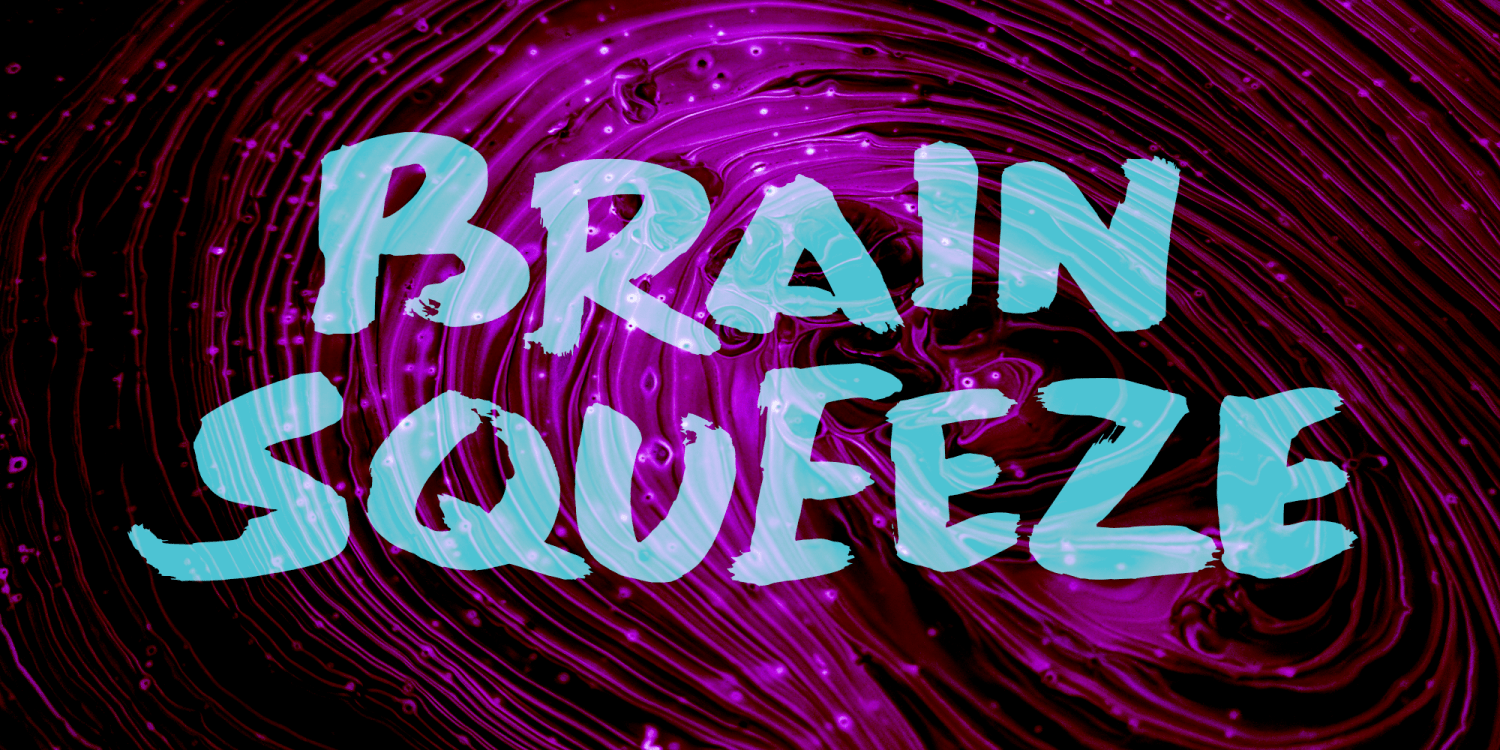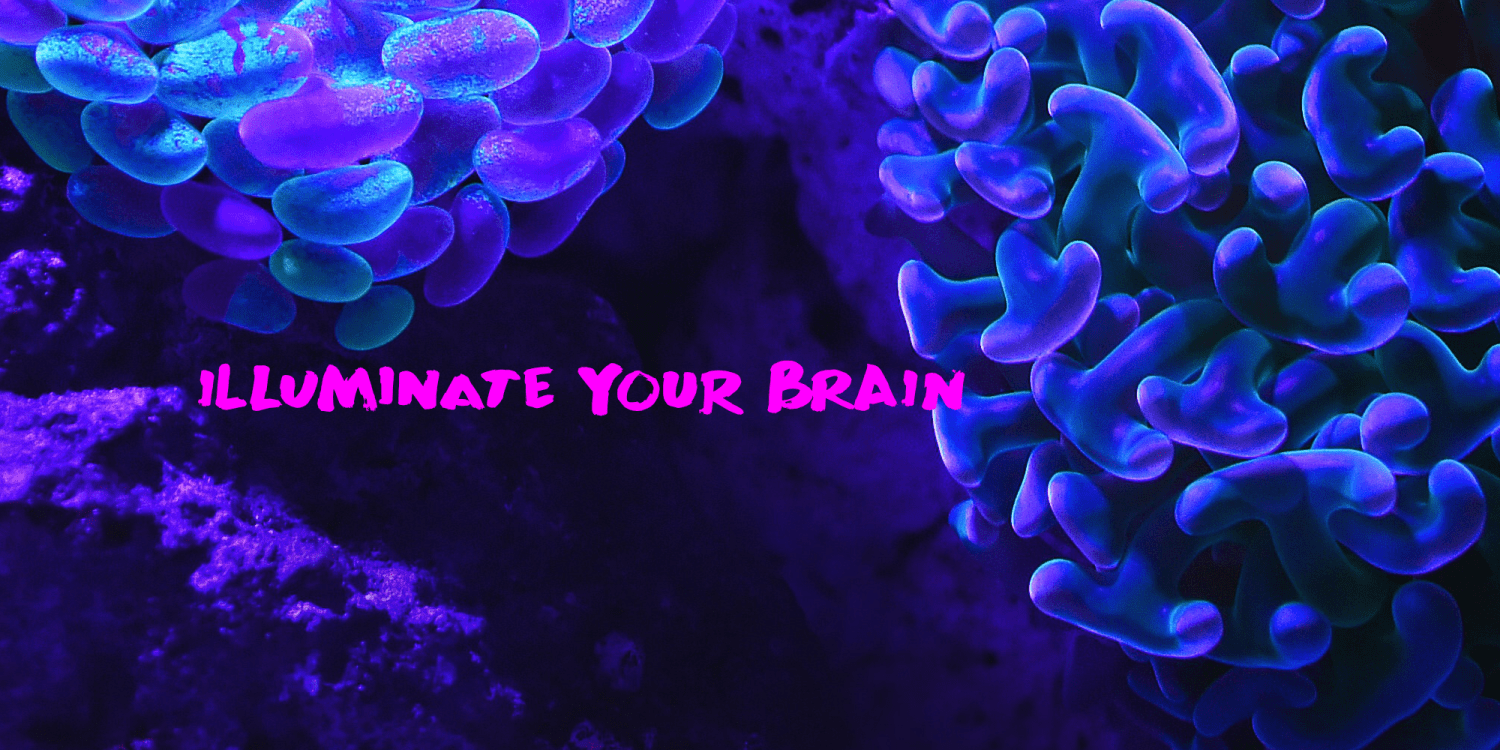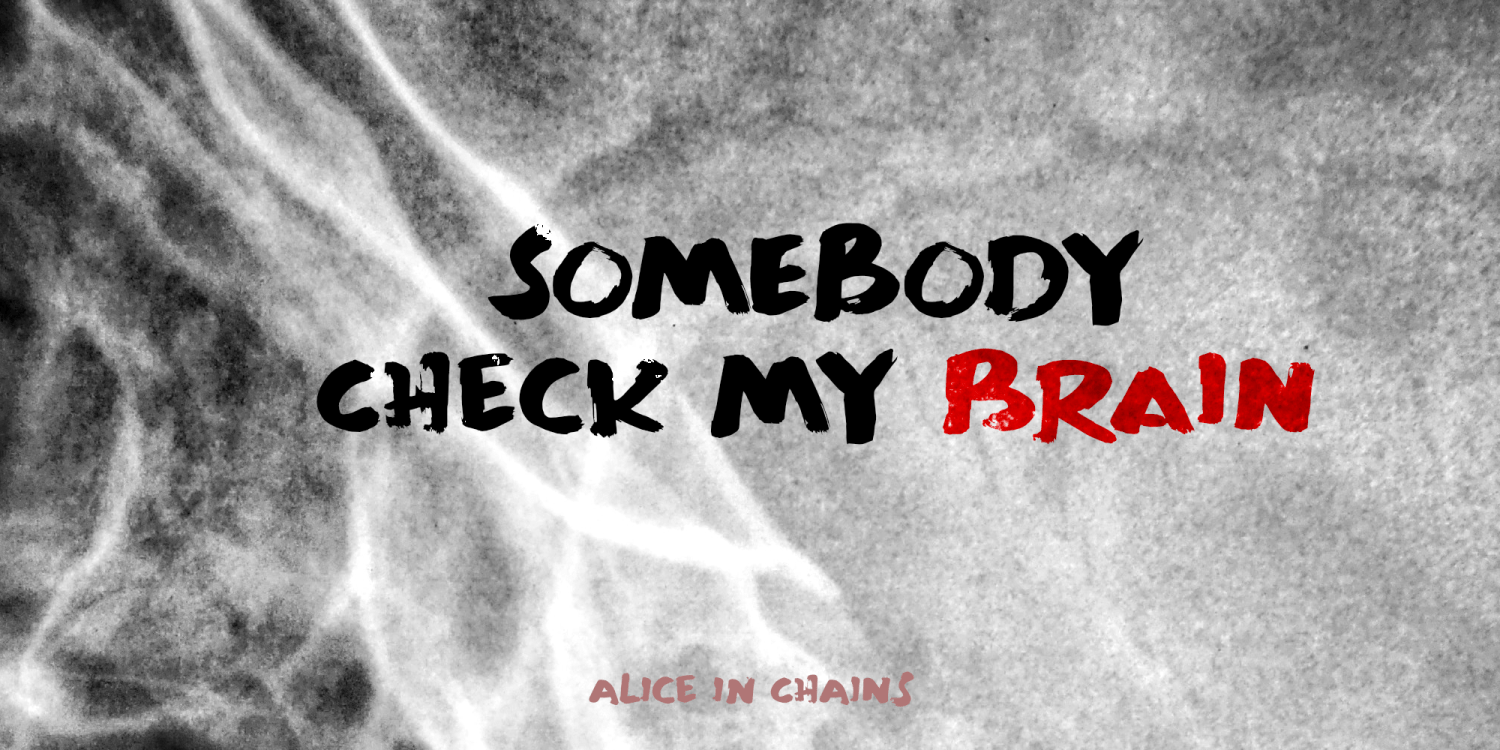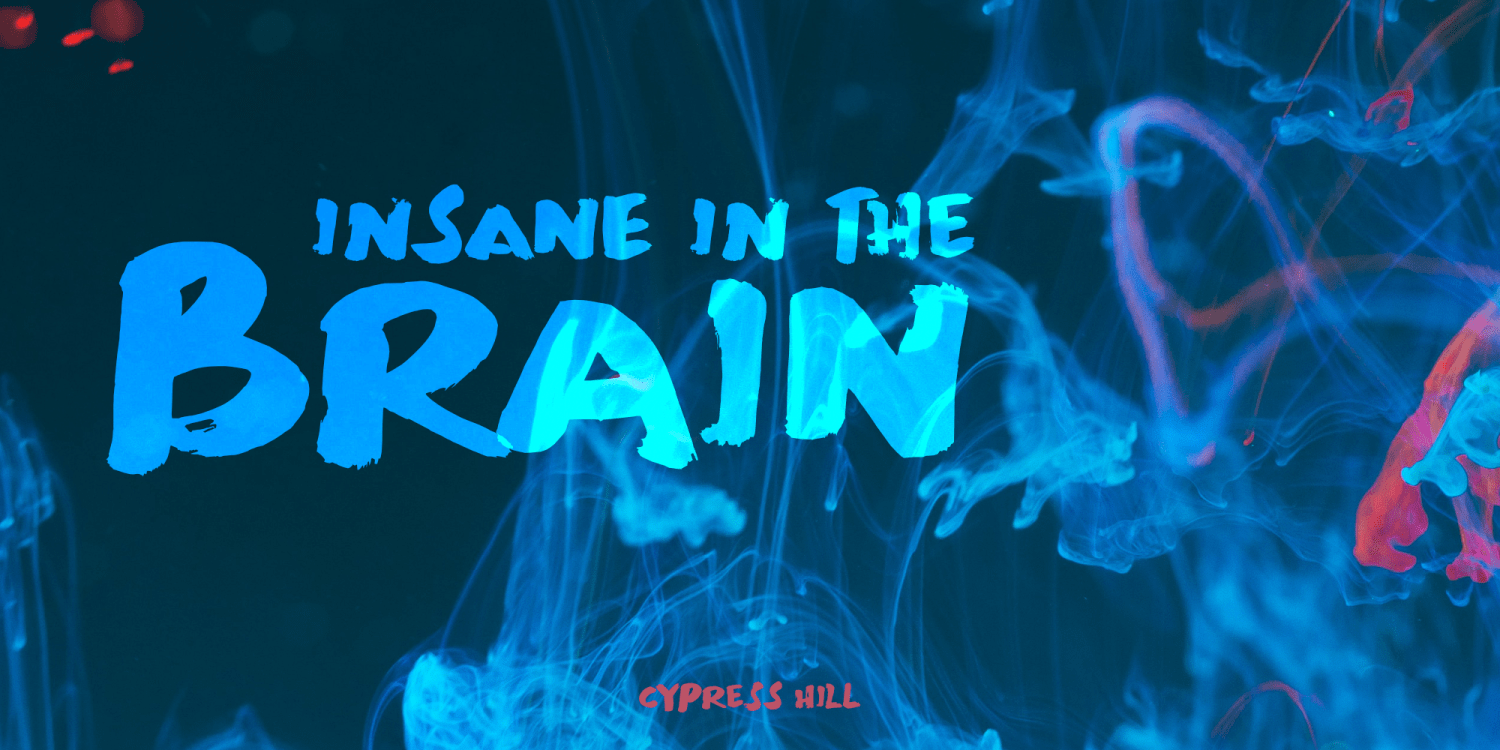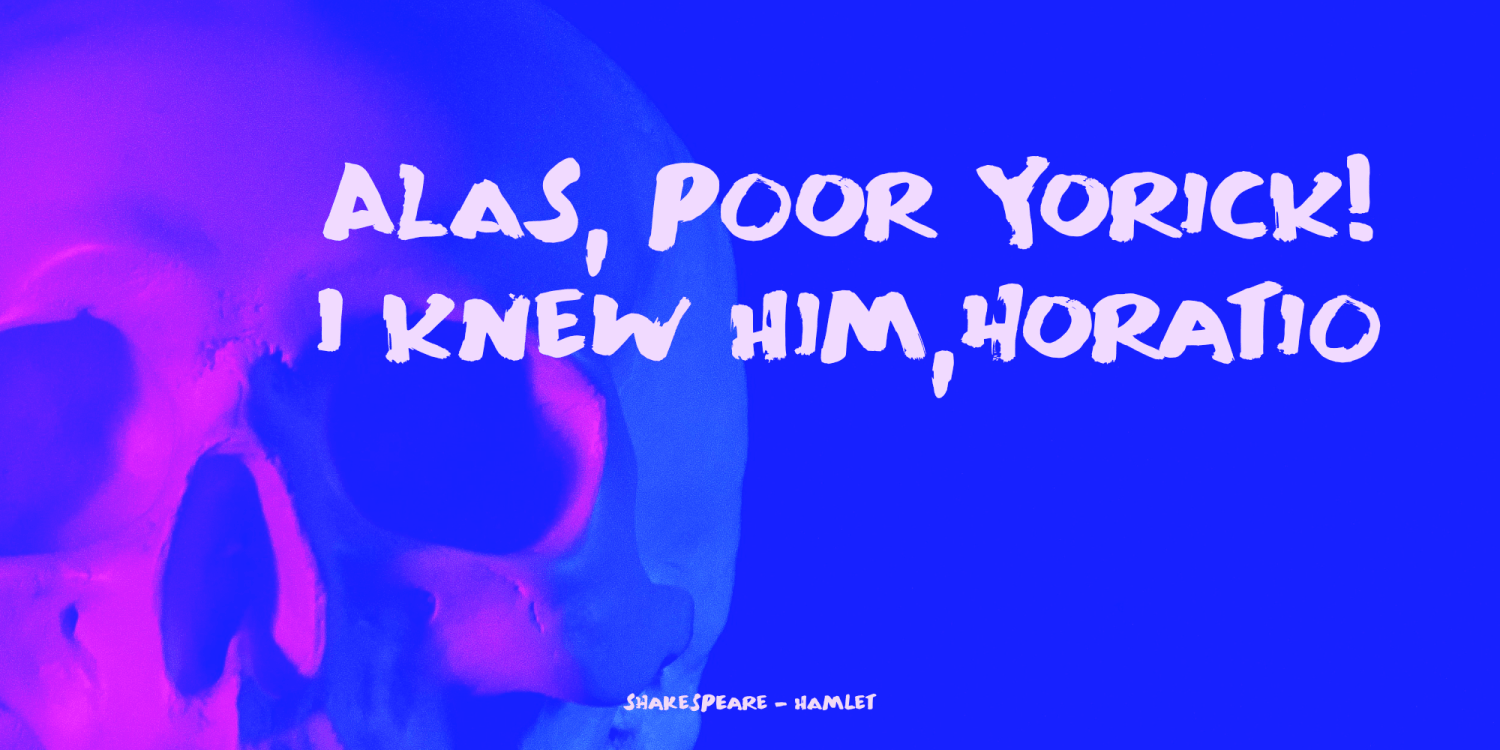
Brain Squeeze
Brain Squeeze is a nice, fat, messy brush font. I made it with one of my late father in law's prized Chinese brushes and my Chinese ink. If you look through my library, you will notice that I make a lot of fonts using these tools!
Brain Squeeze will squeeze your Cabeza for some extra creativity, so what are you waiting for? Use it and have fun!